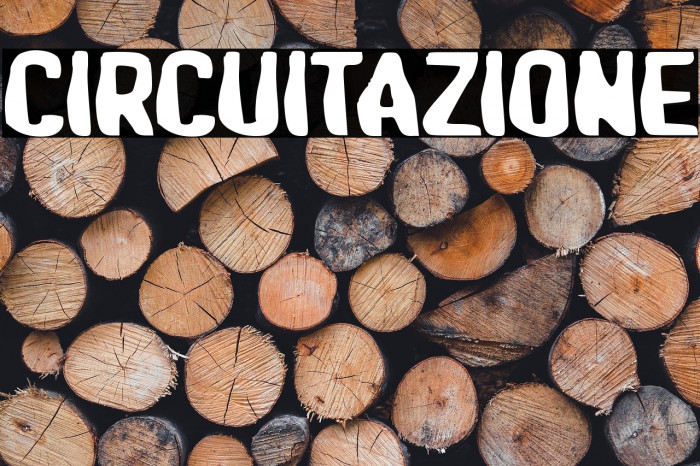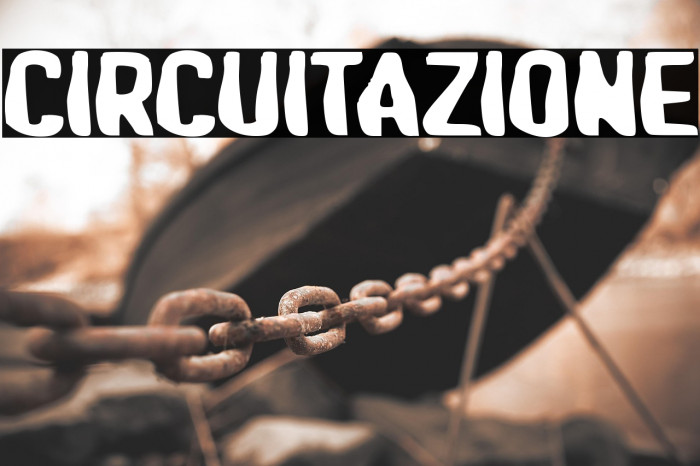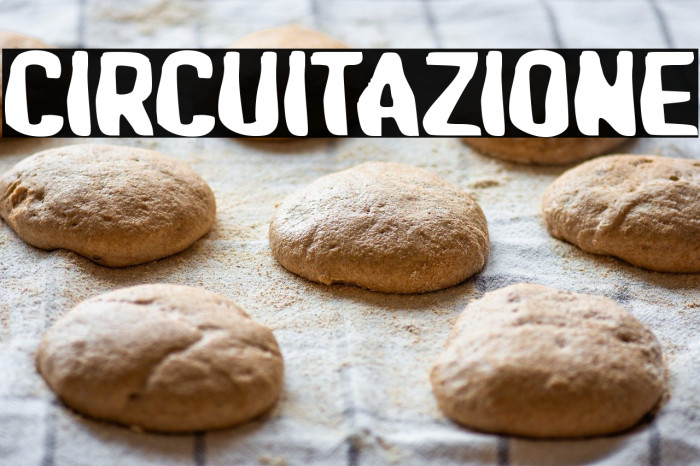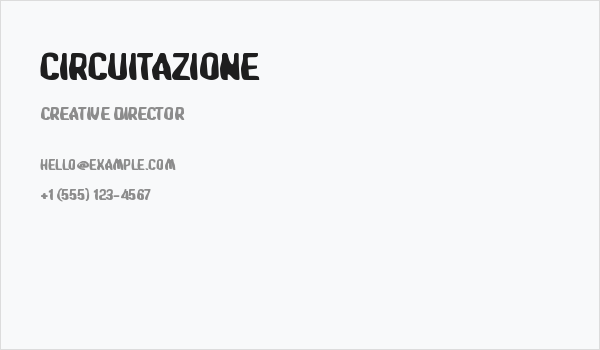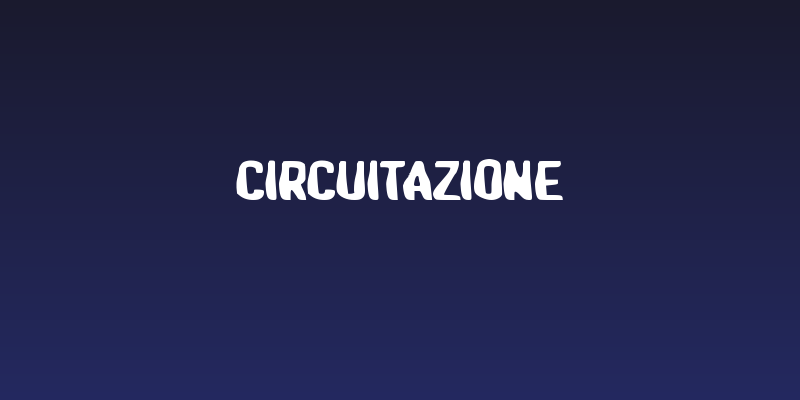
Circuitazione Font
Circuitazione Description
This font features a bold and playful design with a strong presence. The characters are thick and rounded, giving them a friendly and approachable appearance. The strokes are consistent in width, contributing to a cohesive look across all characters. The uppercase and lowercase letters maintain a uniform style, while the numbers and special characters complement the overall design. This font's boldness makes it stand out, ideal for grabbing attention in various applications.
| Overall Style | Playful, Bold |
| Proposed Projects | Ideal for children's books, playful branding, posters, and eye-catching headlines. |